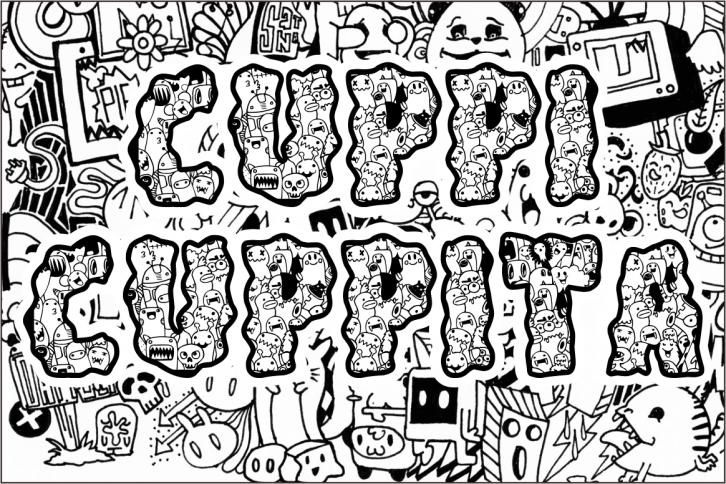
Cuppi Cuppita is a cool and incredibly unique decorative font. Whether you use it for cartoon related designs, children games or just any creation that requires a lovely touch, this font will be an amazing choice.